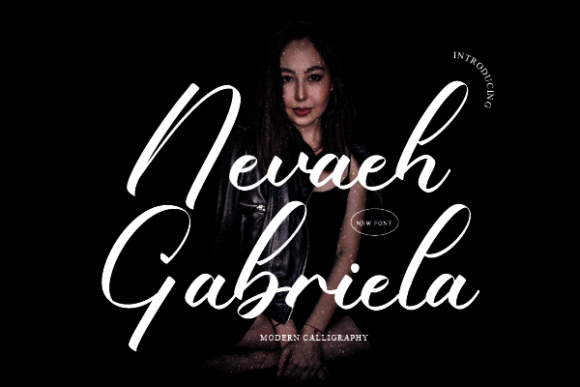
Introducing Nevaeh Gabriela Font, a breathtaking script font family poised to transform your creative visions into captivating realities. Designed by the renowned Synthetic Type, this font exudes elegance and grace, boasting a delicate flow and meticulously crafted characters that harmonize to elevate your designs.
Embrace the allure of Nevaeh Gabriela and adorn your wedding videos with a touch of heartfelt charm. Its whimsical strokes, reminiscent of a gentle dance, will add a layer of sophistication and timeless beauty to your moving images. Let your videos blossom with an enchanting narrative, enhanced by the eloquence of this font.
Step into a world of endless creative possibilities with Nevaeh Gabriela. Its versatility knows no bounds, extending beyond wedding videos. Unleash your imagination and let the font's graceful lines intertwine with your most inspired ideas. Whether it's branding, packaging, social media, or any other creative endeavor, Nevaeh Gabriela will elevate your designs to new heights.
Immerse yourself in the world of Nevaeh Gabriela and discover a font that truly speaks to your soul. Its delicate touch and graceful curves will leave an indelible mark on your creative projects, evoking emotions that resonate with your audience. Experience the magic of Nevaeh Gabriela and let your creativity flourish.